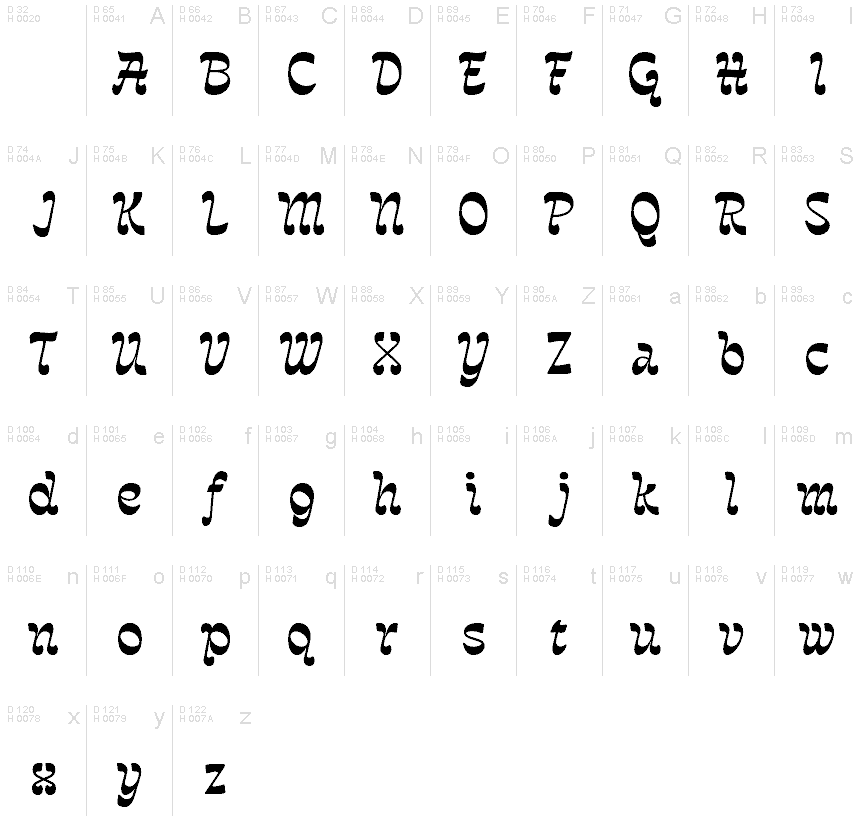
CS Flare Regular Demo
CS Flare font by Craft Supply Co. is a flamboyant brush font with an artistic flair. Vintage, yet perfectly fit for modern designs, it can communicate your contents energetically and expressively. At its best when used in large sizes, CS Flare produces memorable texts that your readers will never forget.